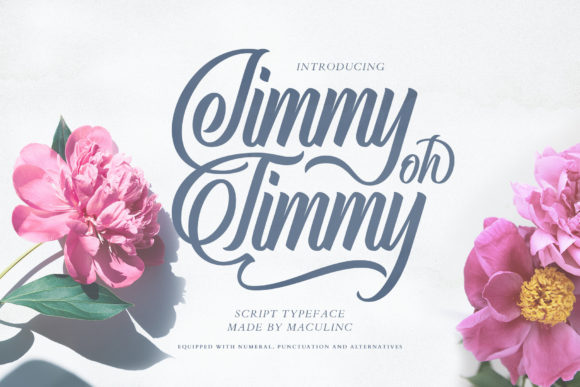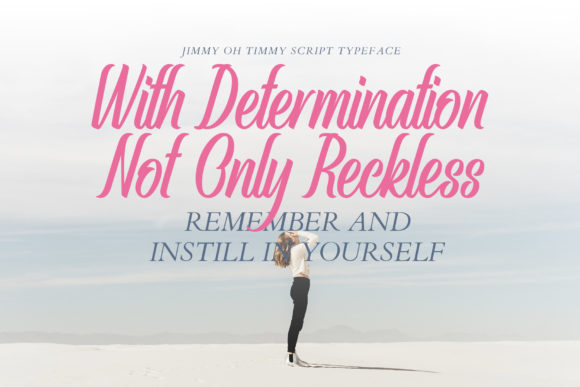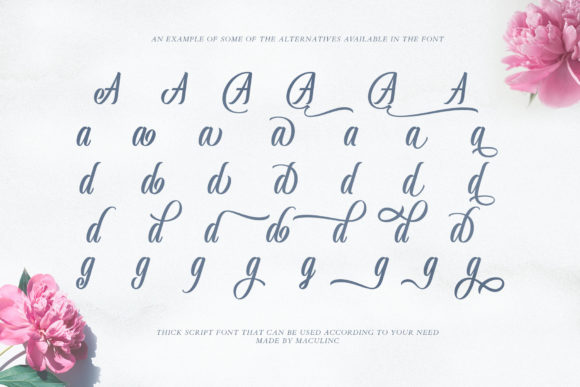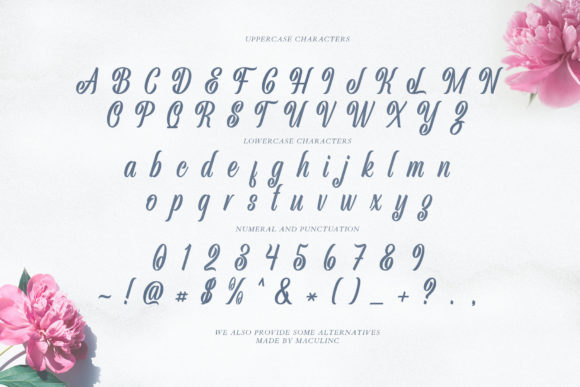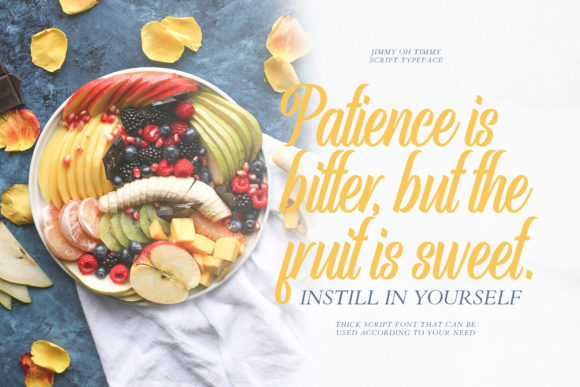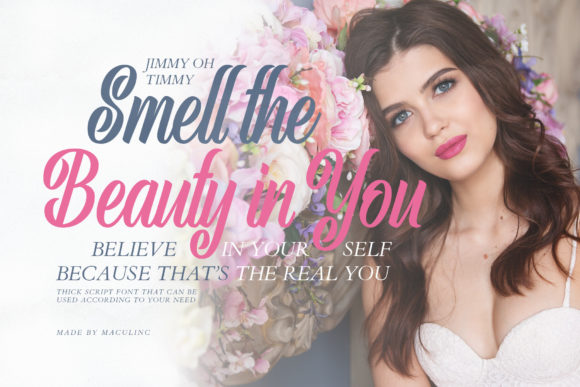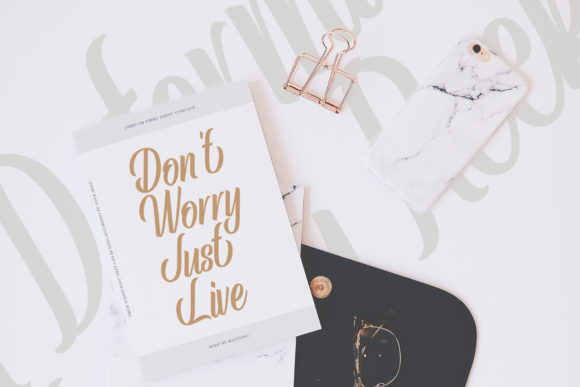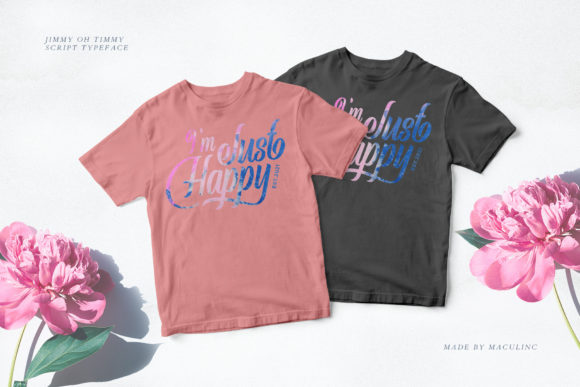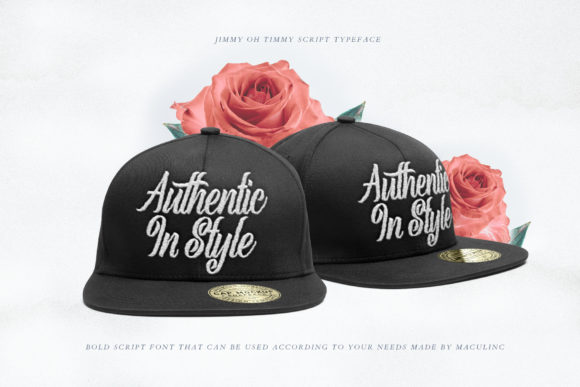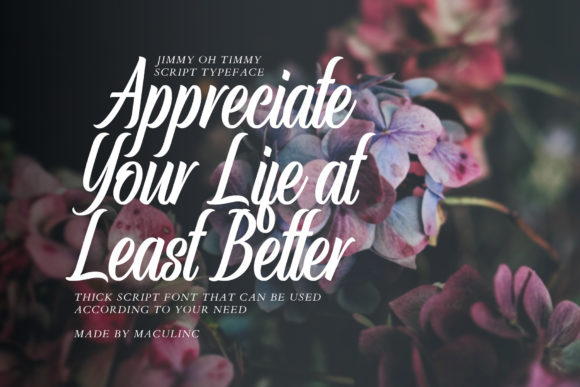
Jimmy Oh Timmy Font
About Jimmy Oh Timmy Font
Jimmy Oh Timmy is a well balanced script font with a contemporary atmosphere and impeccable form, inspired by timeless classic calligraphy. Not too thin and not too thick, this font was designed to enhance the beauty of your projects.